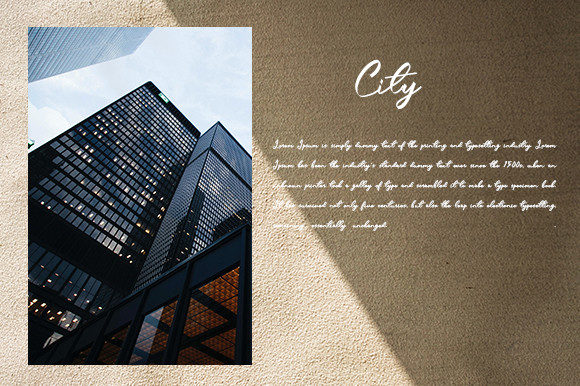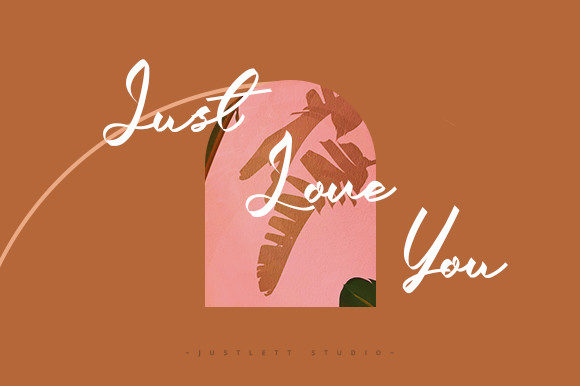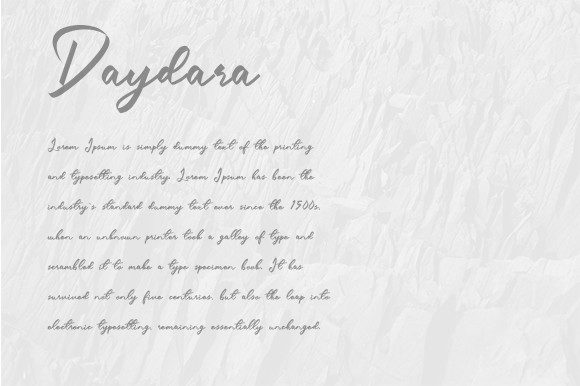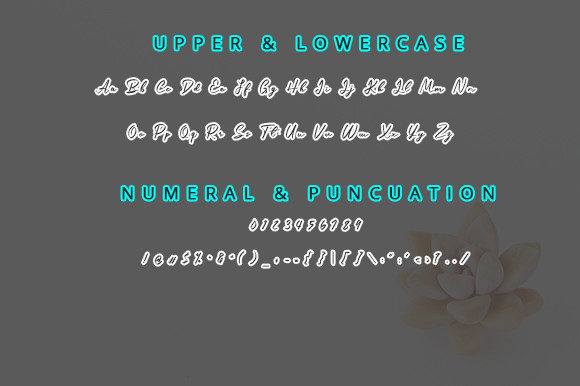
Introducing Daydara Font: The Ultimate Casual Handwritten Font for Designers and Crafters
Are you tired of using the same old fonts in your design projects? Do you want to add a touch of personality and uniqueness to your creations? Look no further than Daydara Font! This beautiful and casual handwritten font is designed to bring a relaxed and trendy vibe to any design project you wish to create.
What Makes Daydara Font So Special?
Daydara Font is a one-of-a-kind font that boasts a unique feel and a trendy impact. Its casual and handwritten style makes it perfect for designers and crafters who want to add a personal touch to their work. Whether you’re creating a logo, a social media post, or a branding material, Daydara Font is sure to make your design stand out from the crowd.
Key Features of Daydara Font
- Unique and Handwritten Style: Daydara Font features a beautiful and casual handwritten style that is sure to add a touch of personality to your design projects.
- Trendy Impact: This font is designed to make a trendy impact on your designs, making it perfect for modern and contemporary projects.
- Relaxed Touch: Daydara Font adds a relaxed touch to any design project, making it perfect for designs that require a casual and laid-back vibe.
- Versatile: This font is versatile and can be used in a variety of design projects, from logos and branding materials to social media posts and more.
How to Use Daydara Font in Your Design Projects
Using Daydara Font in your design projects is easy! Here are a few tips to get you started:
- Pair it with Other Fonts: Daydara Font pairs well with other fonts, so don’t be afraid to experiment with different font combinations to create a unique look.
- Use it for Headings and Titles: This font is perfect for headings and titles, as it adds a touch of personality and whimsy to your designs.
- Add it to Your Branding Materials: Use Daydara Font in your branding materials, such as logos, business cards, and brochures, to add a personal touch to your brand.
Why Designers and Crafters Love Daydara Font
Designers and crafters love Daydara Font for its unique and trendy style. Here are a few reasons why:
- Easy to Read: Despite its casual style, Daydara Font is easy to read, making it perfect for designs that require a lot of text.
- Highly Versatile: This font is highly versatile and can be used in a variety of design projects, from digital designs to print materials.
- Unique and Creative: Daydara Font is a unique and creative font that adds a touch of personality to any design project.
In conclusion, Daydara Font is a beautiful and casual handwritten font that is perfect for designers and crafters who want to add a touch of personality and uniqueness to their design projects. With its unique feel and trendy impact, this font is sure to make your designs stand out from the crowd. So why wait? Download Daydara Font today and start creating stunning designs that showcase your creativity and style!